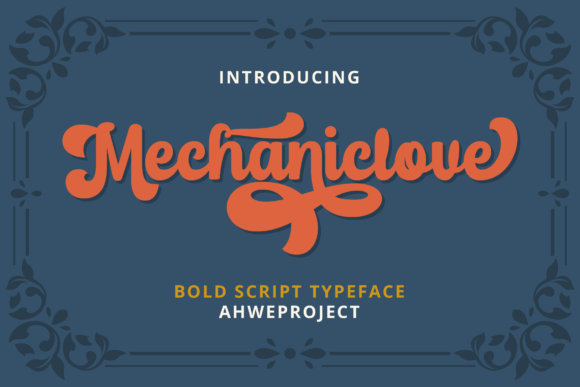
Behold the mesmerizing Mechaniclove Font, a captivating dance of script that will paint your words with an aura of retro elegance. This exquisite creation by ahweproject is not just a font; it's an artistic journey through time, infusing your designs with a nostalgic charm that speaks to the soul.
Imagine your Christmas labels adorned with the graceful strokes of Mechaniclove. The delicate curves and sweeping flourishes will transform your gifts into timeless treasures, each one carrying a story of love and cheer. Let your creativity soar as you design holiday cards, invitations, and festive posters that radiate warmth and merriment.
With Mechaniclove as your creative companion, you can effortlessly craft logos and branding that exude a sense of heritage and authenticity. Its bold, confident strokes command attention, leaving an indelible mark on the minds of your audience. Picture your business cards, letterheads, and marketing materials radiating a timeless appeal that sets you apart from the ordinary.
But Mechaniclove's allure extends beyond the realm of Christmas and branding. Its versatility knows no bounds, allowing you to weave its magic into a myriad of design projects. Create stunning wedding invitations that capture the essence of romance or design enchanting posters for your next book launch. The possibilities are endless, and the results are always breathtaking.
Unleash your inner artist and let Mechaniclove guide you on a creative odyssey. Its PUA encoding grants you effortless access to a treasure trove of glyphs and swashes, empowering you to add intricate details and flourishes to your designs.